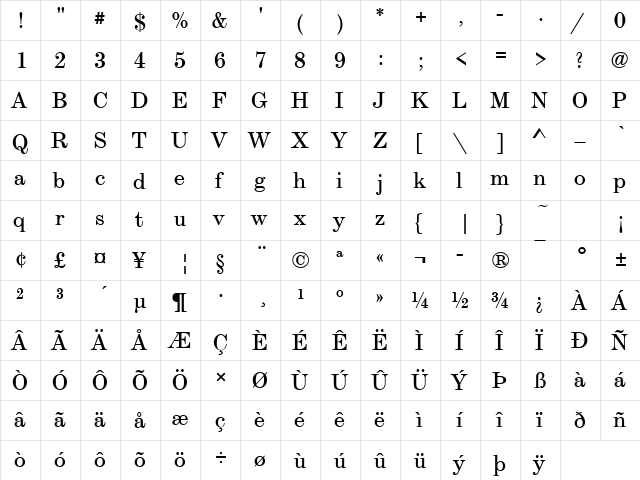
ModernExtT Regular Font Preview
ModernExtT Regular
Design Context for ModernExtT Typeface
ModernExtT is a composed and adaptable typeface that performs quietly and consistently across a wide range of design contexts.